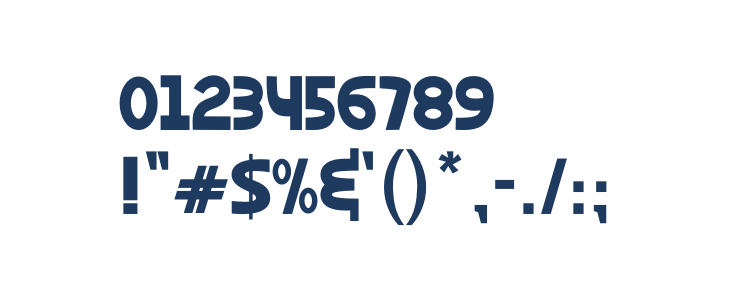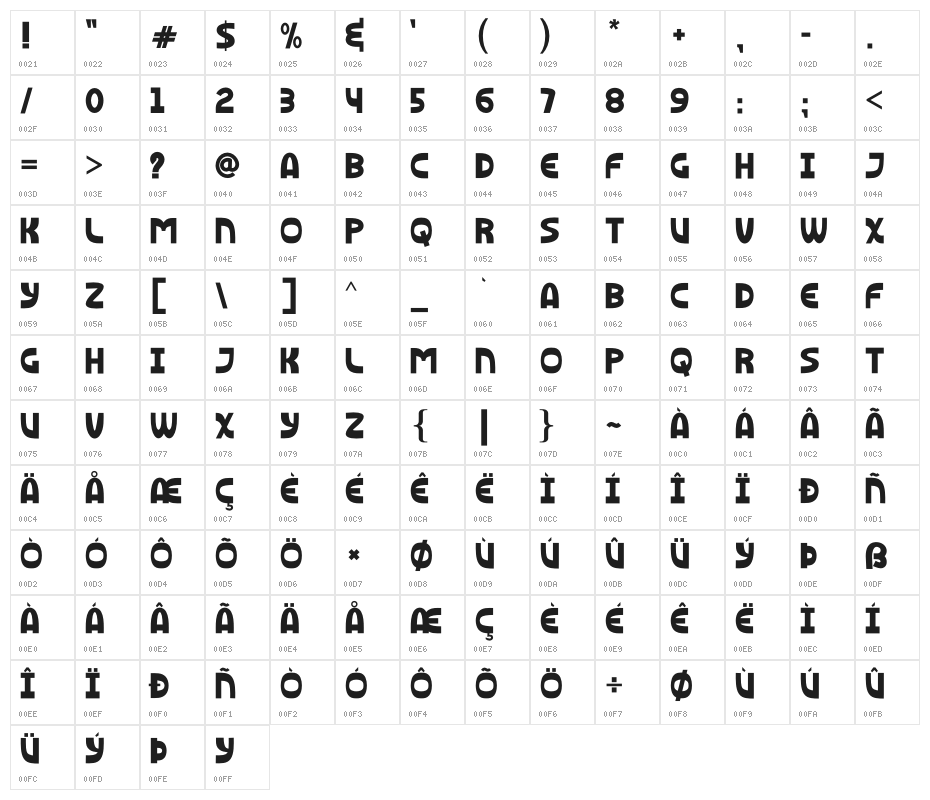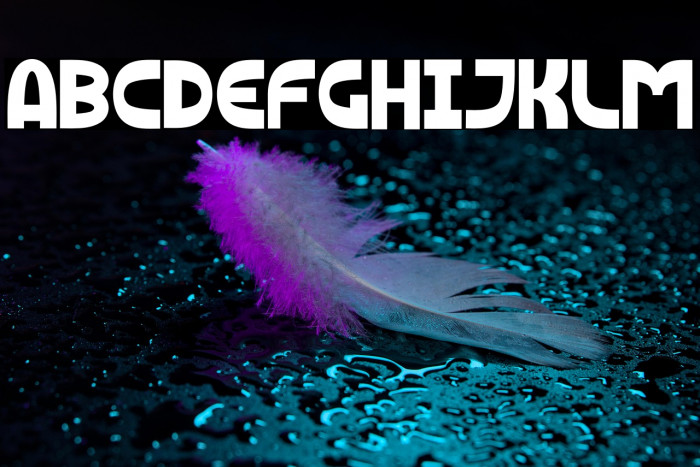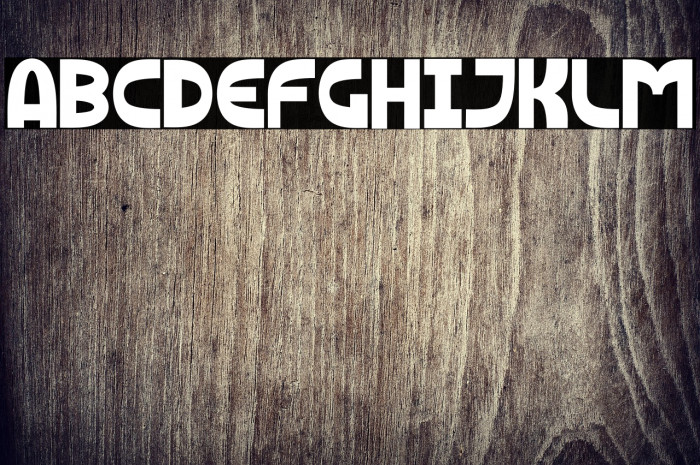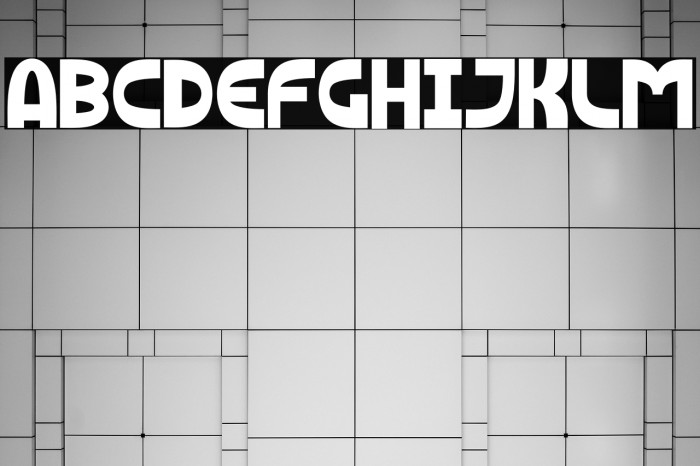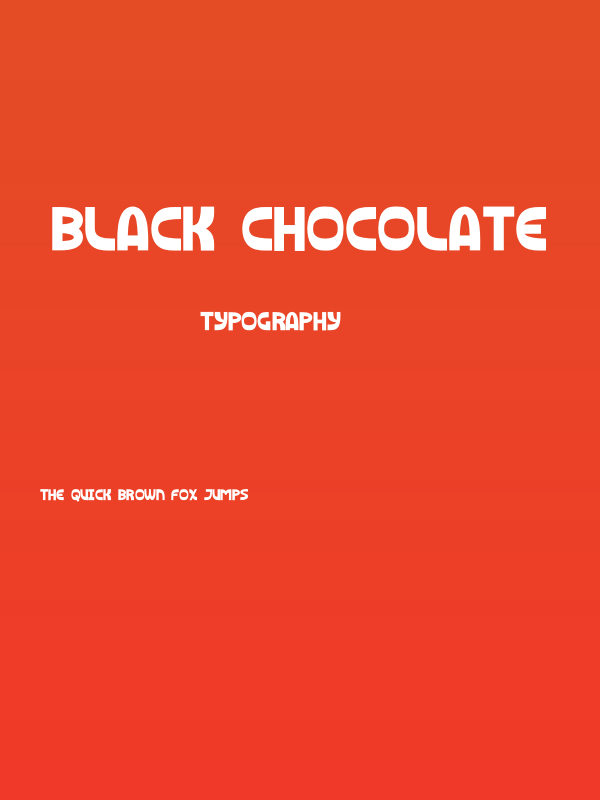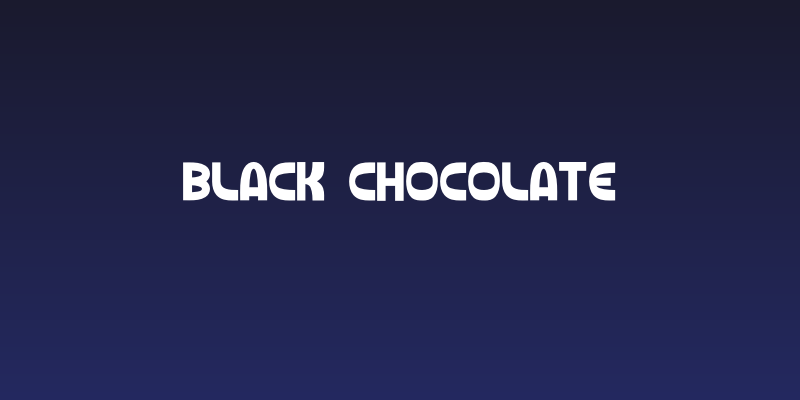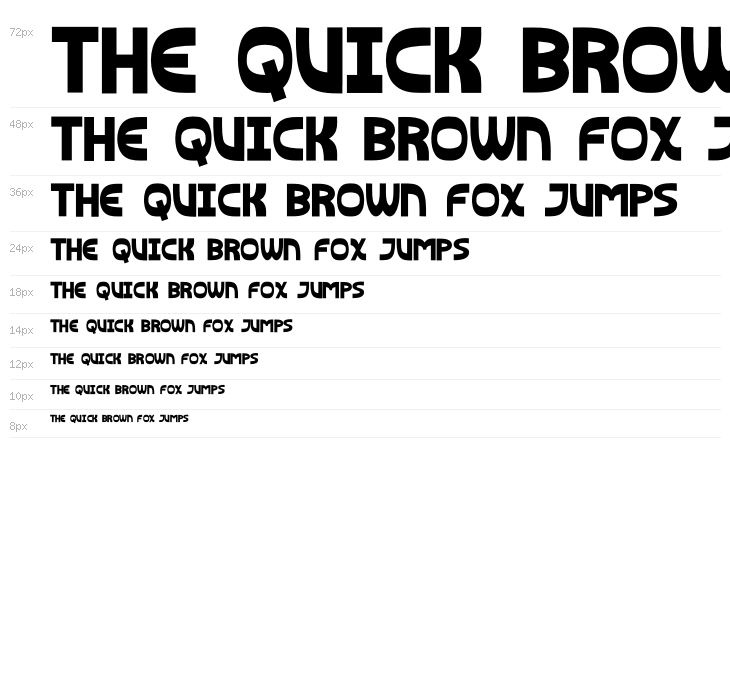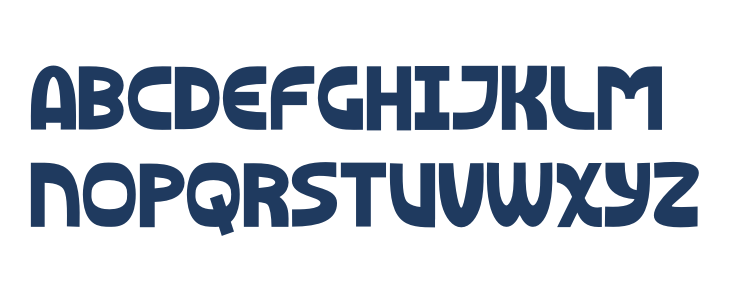
Black Chocolate Font
Black Chocolate Description
This font features a bold and robust design with a strong presence. The characters are wide and have a slightly rounded appearance, giving them a friendly yet assertive look. The strokes are thick and consistent, providing a uniform and cohesive style across all characters. The font includes both uppercase and lowercase letters, numerals, and a variety of special characters, making it versatile for different applications. Its boldness and unique style make it suitable for attention-grabbing headlines and impactful designs.
| Proposed Projects | Ideal for branding, advertising, posters, and any project requiring a bold statement. |